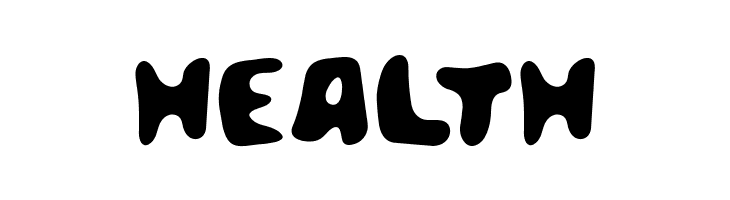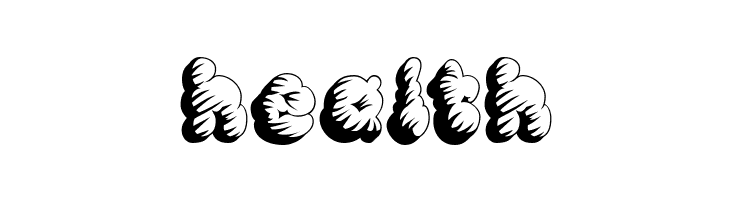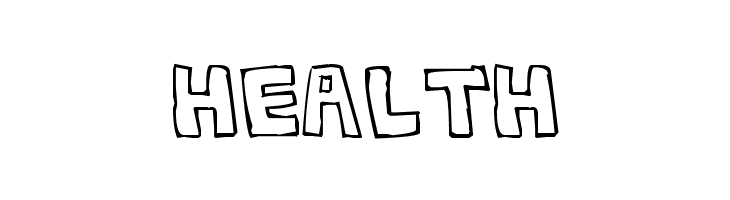
A playful, bold font with rounded, bubbly characters and a whimsical style.
A playful, cloud-like font with bubbly, outlined letterforms and quirky cutouts.
A bold, playful font with a bubbly, cloud-like appearance.
A playful, cloud-inspired font with a bold, three-dimensional style.
A playful, hand-drawn font with bold outlines and a cartoonish style.
A playful, bold font with rounded, chubby characters ideal for fun and engaging designs.